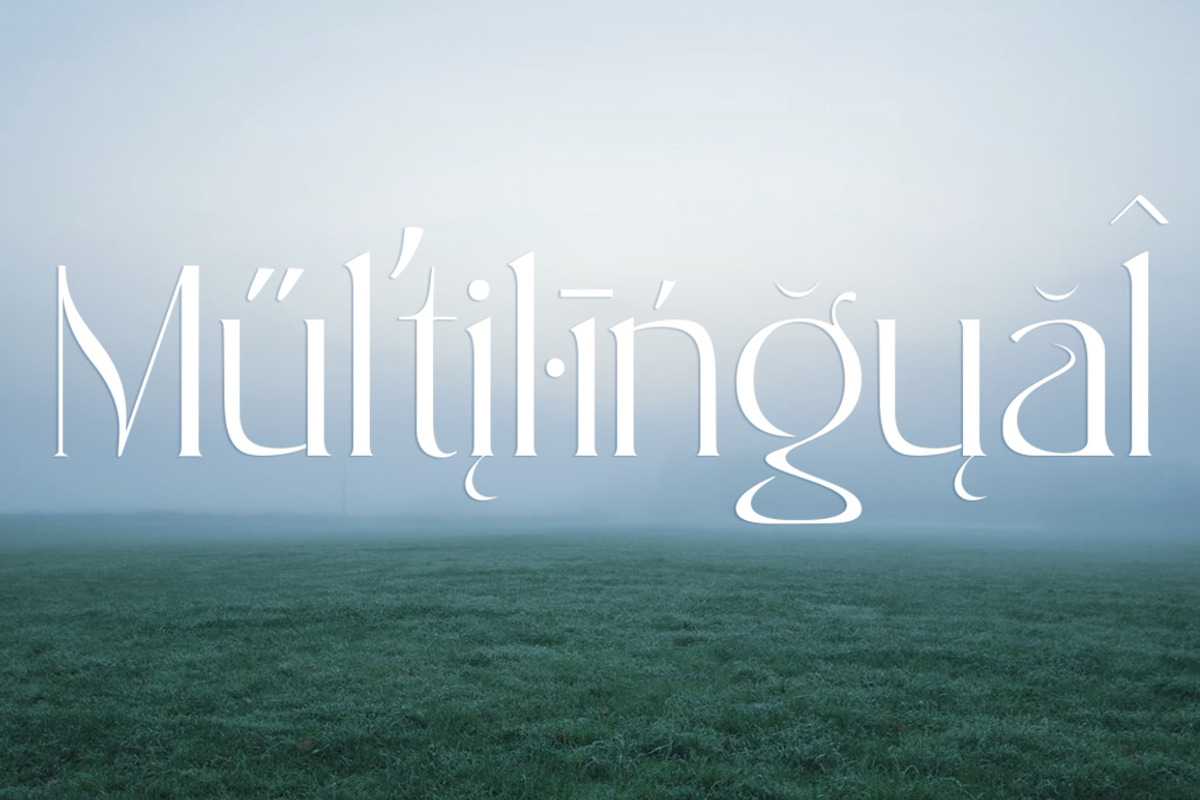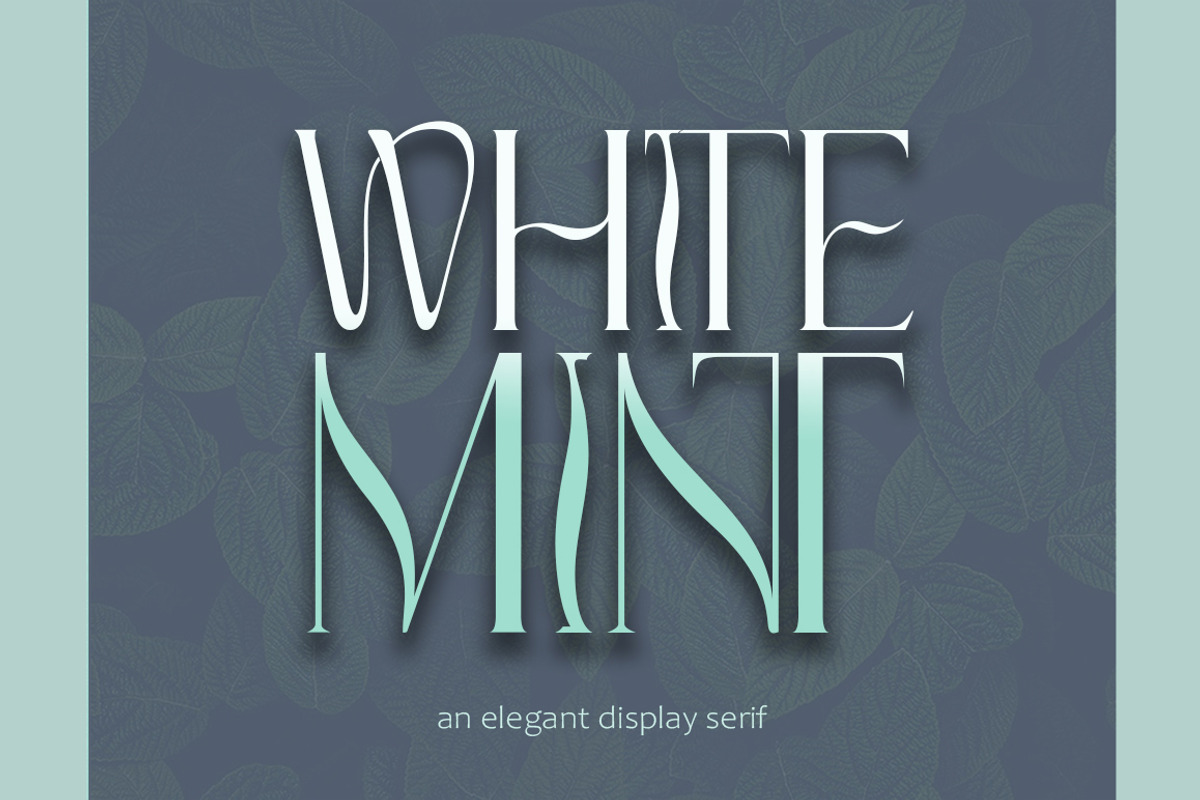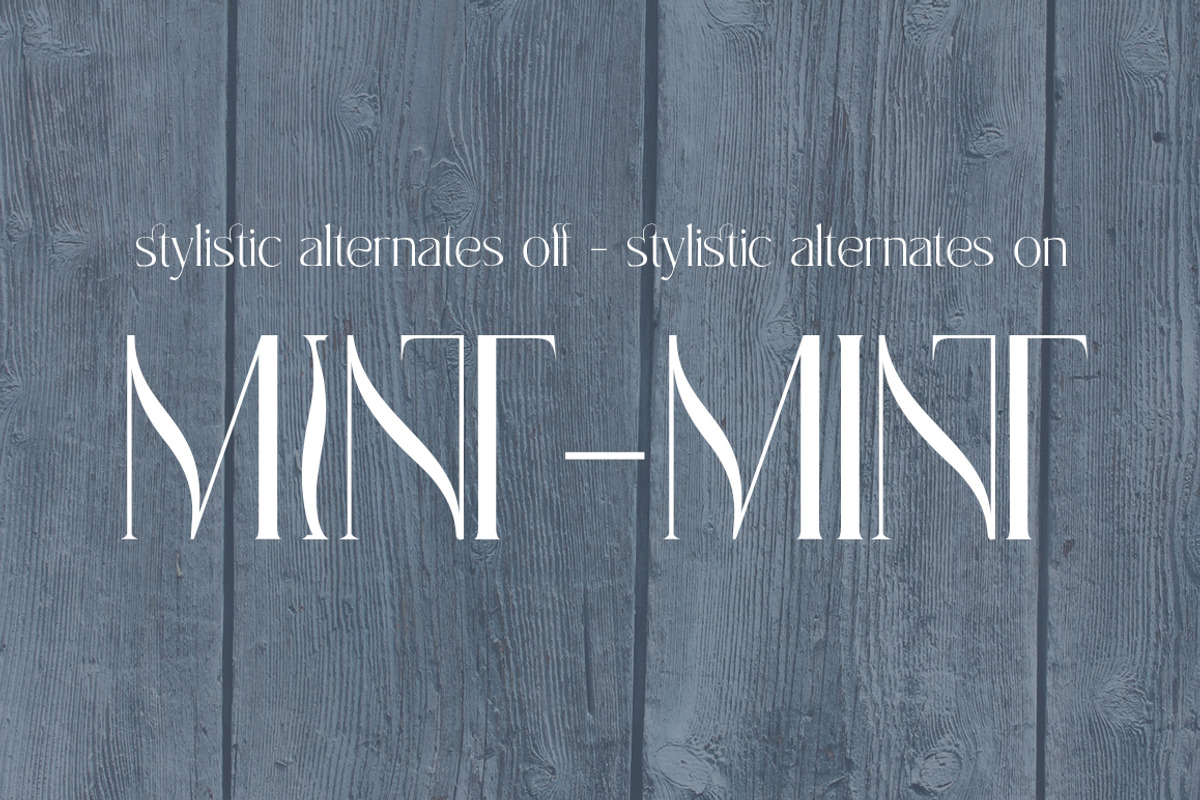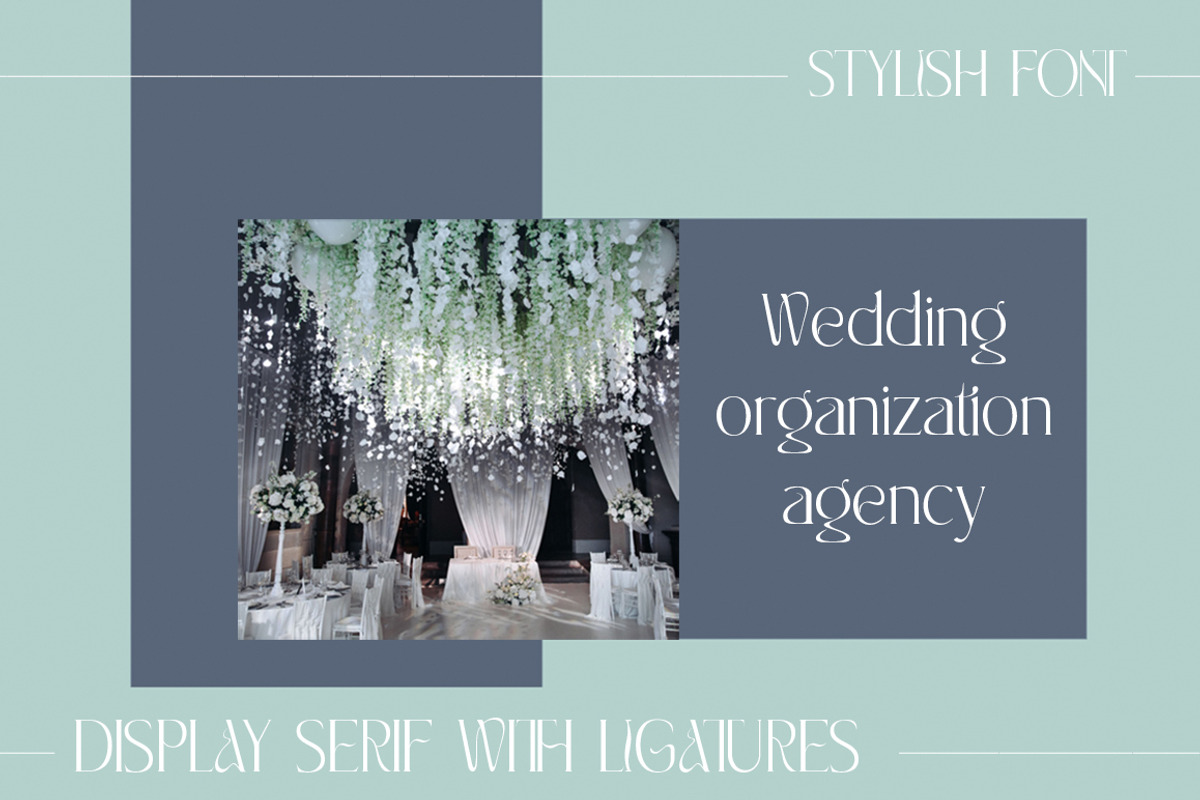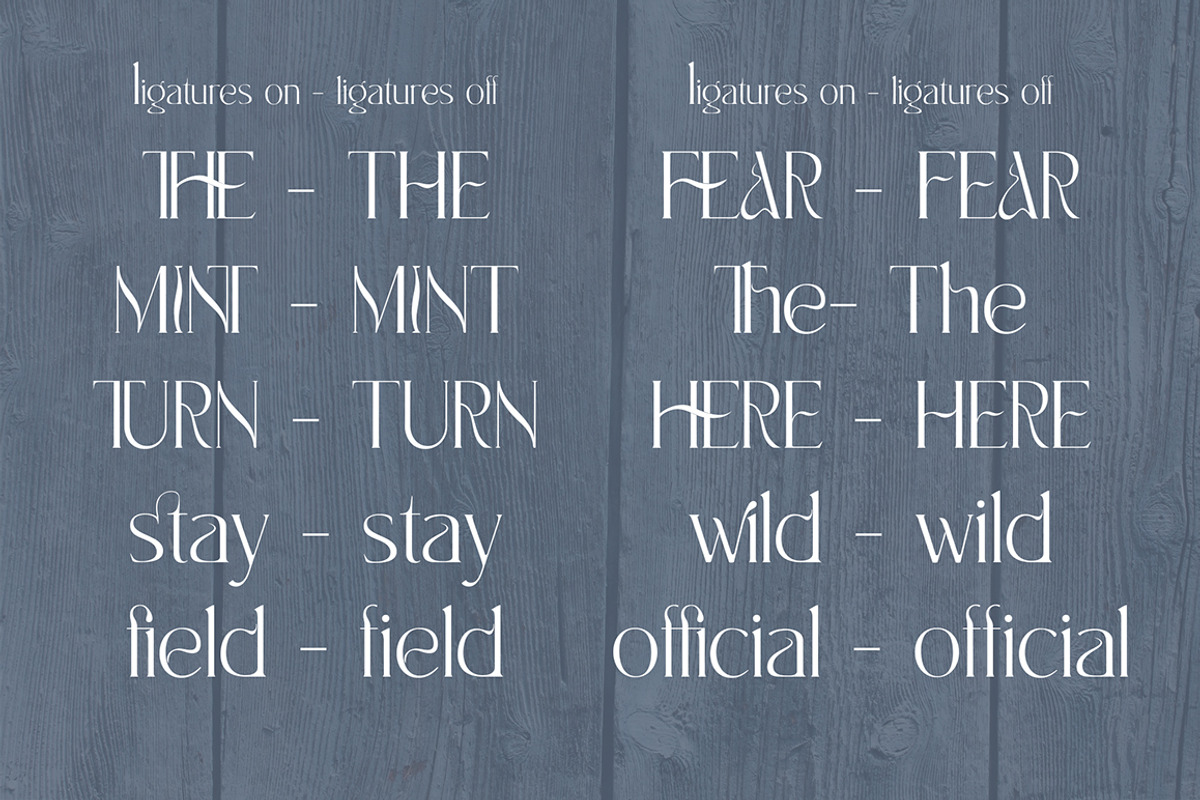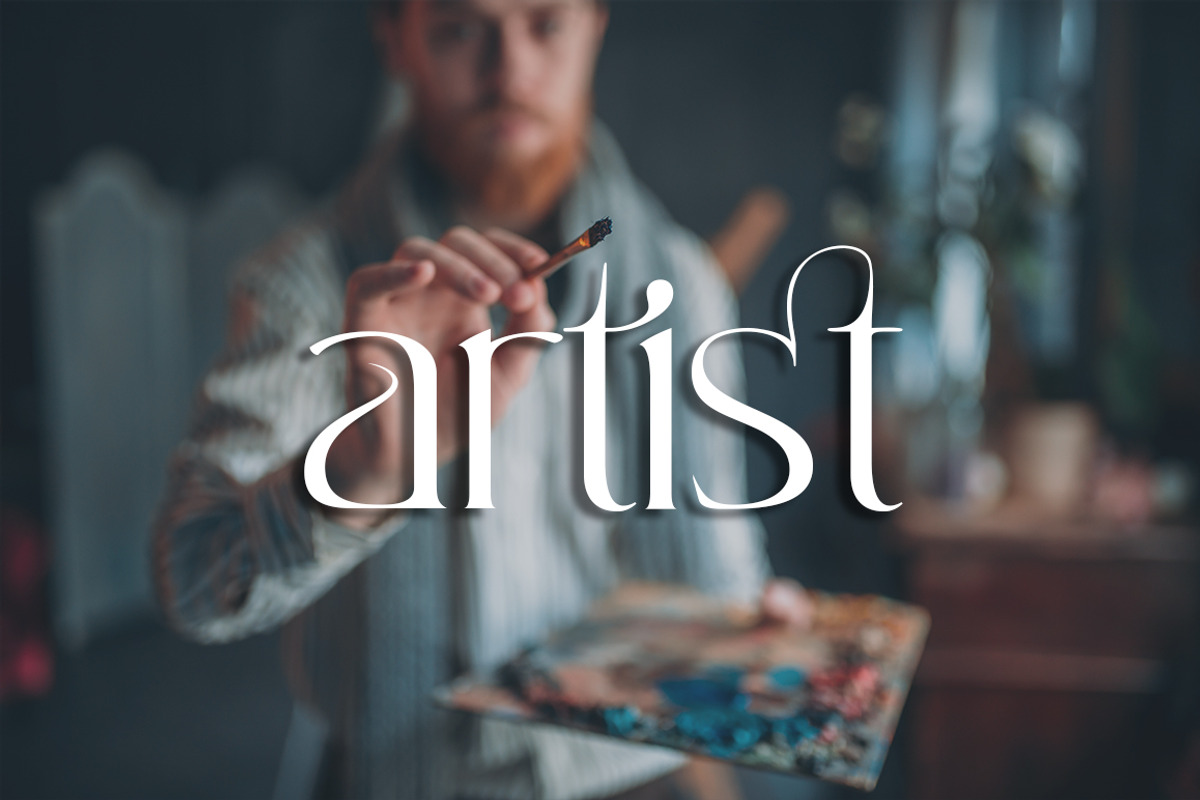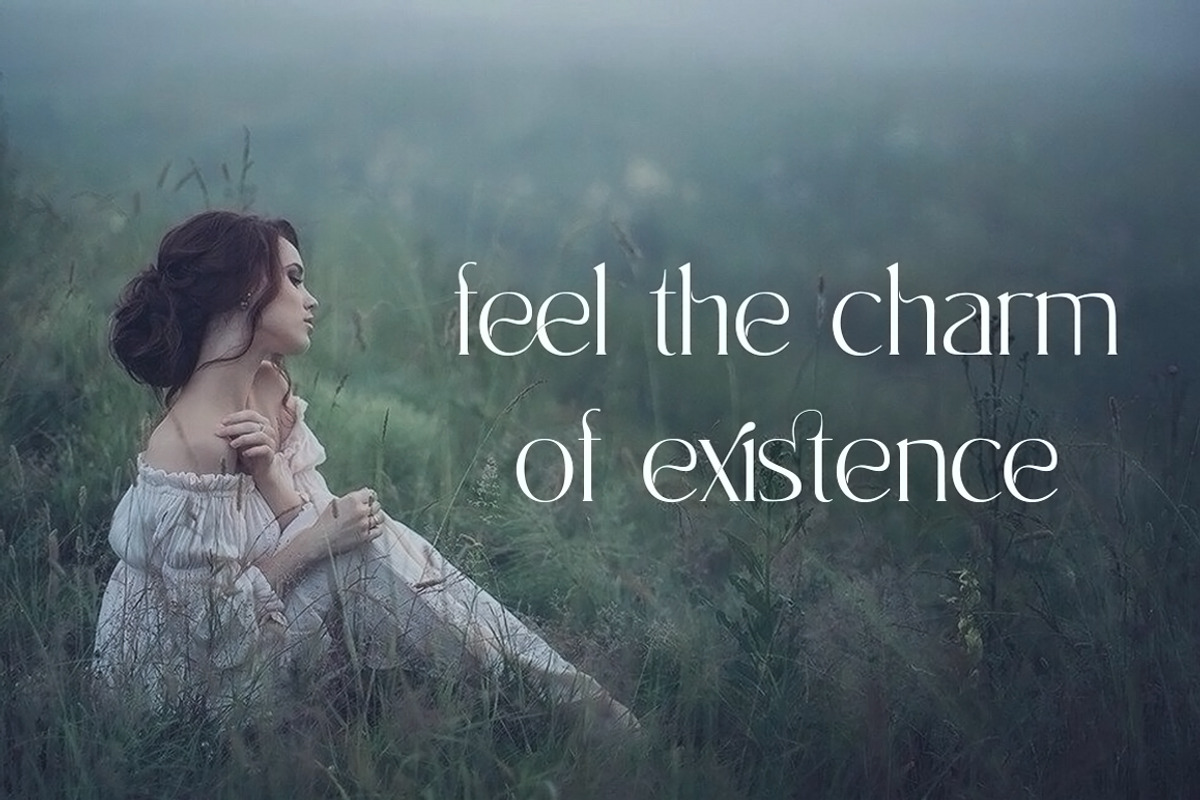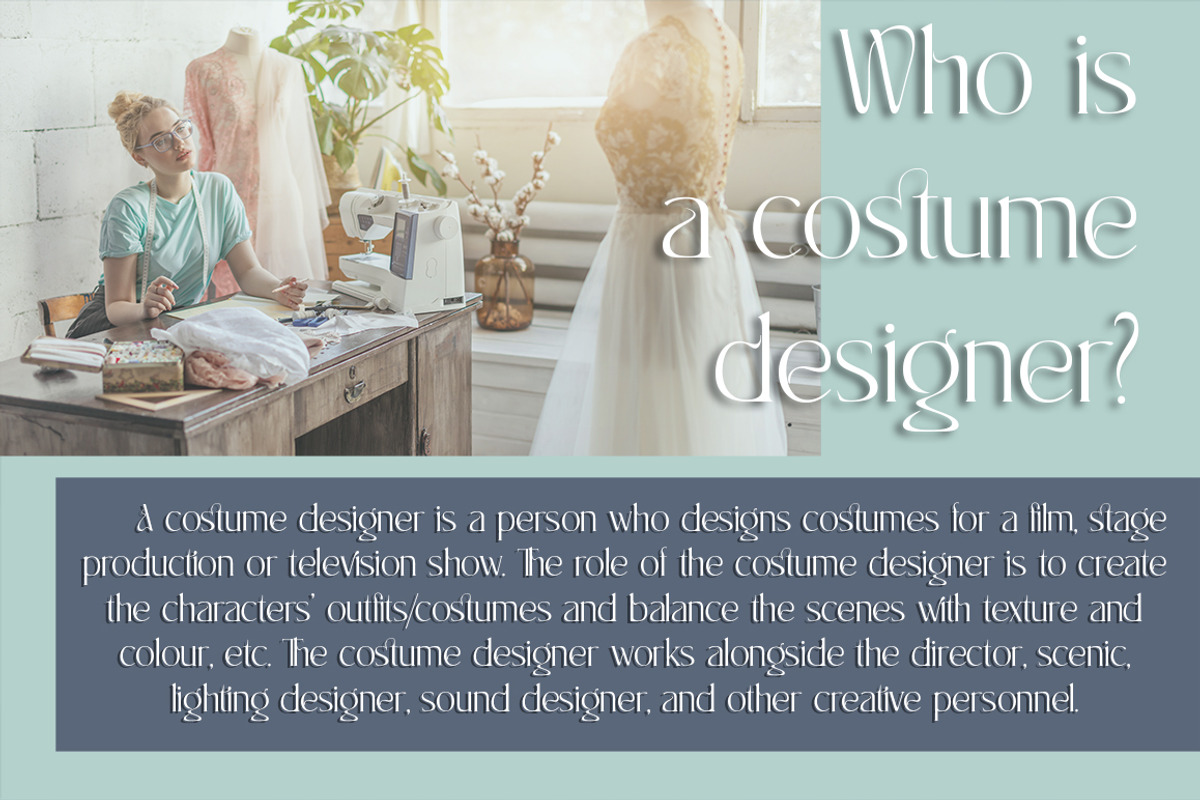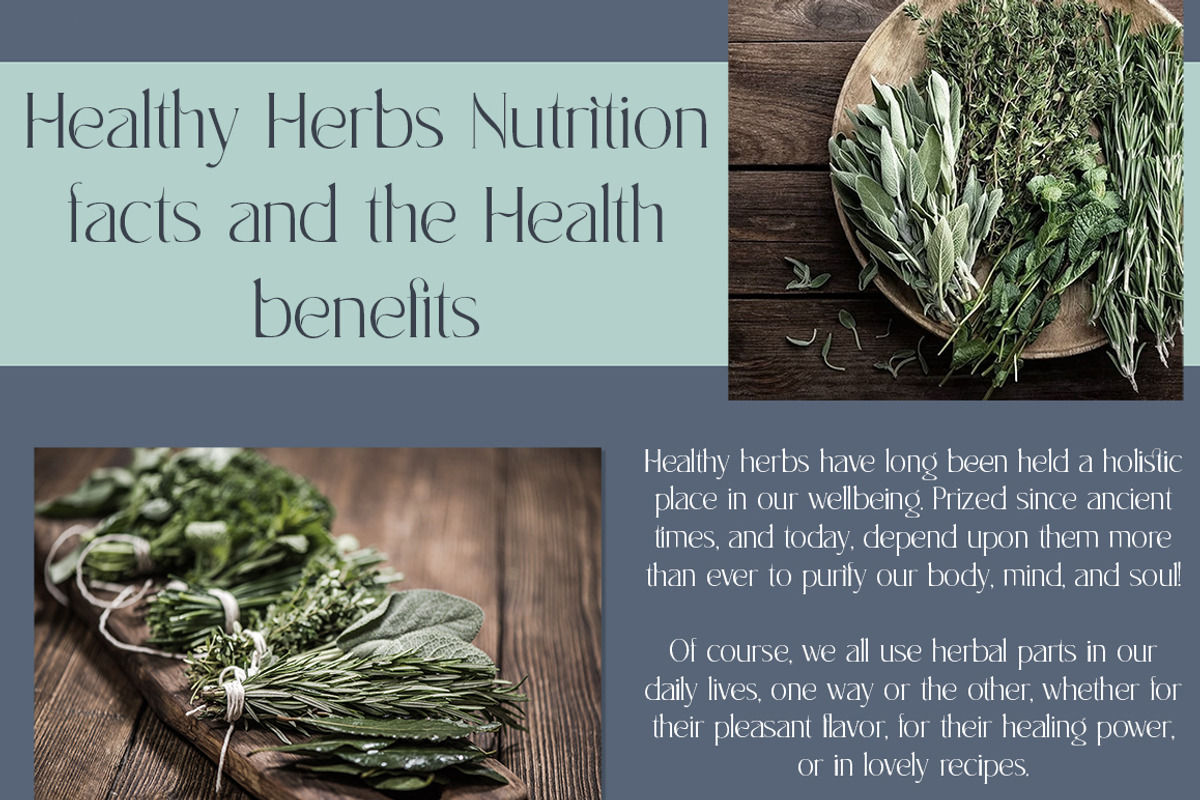
White Mint - elegant display serif
White Mint - is an elegant serif font that combines strict, refined forms and playful elements inspired by natural motifs. This versatile, easy-to-use font is perfect for branding, business card design, wedding invitations, social network pages, and much more. Ligatures will help you create original text that is easy to read at the same time. Multilingual support allows you to use the font not only on Latin glyphs
- Multilingual Characters
- Stylistic Alternates for glyphs "I" :)